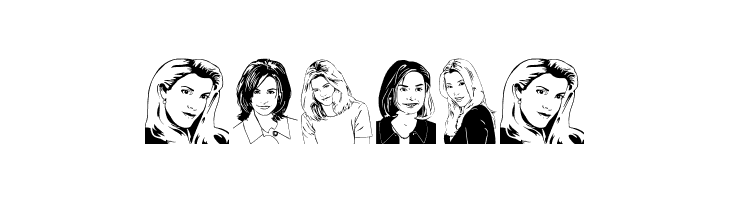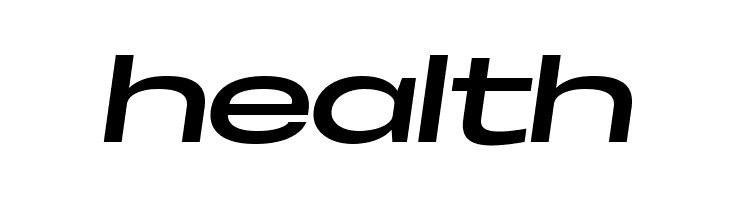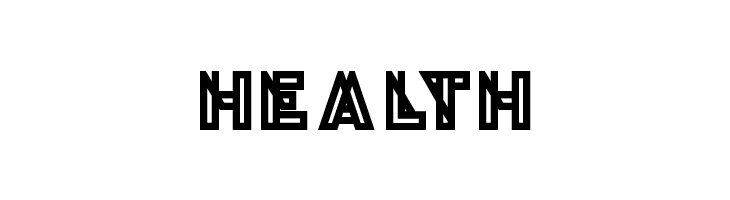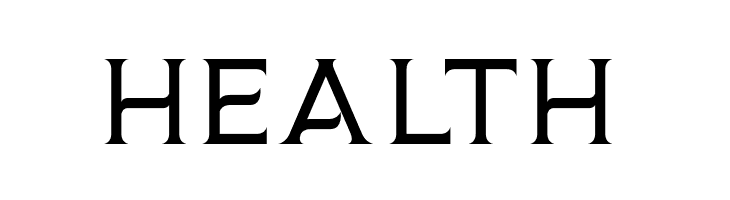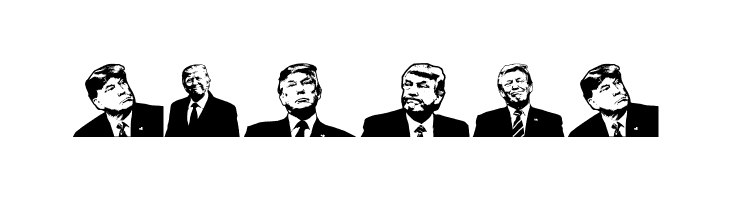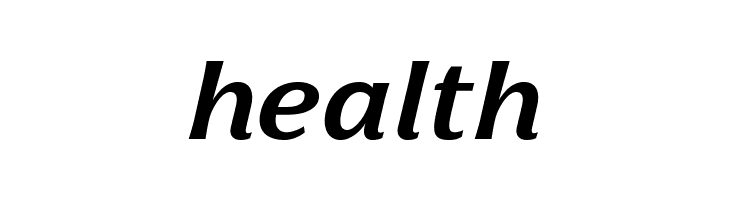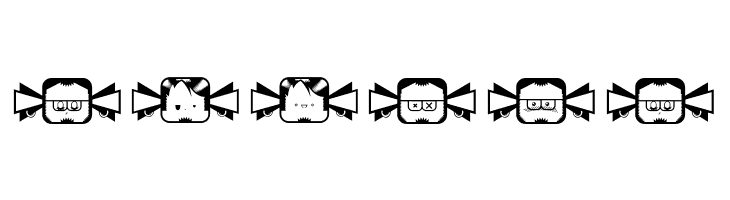
( Michael Gaines )
Illustrative font with each glyph as a woman's portrait.
( Måns Grebäck - www.mansgreback.com )
A bold, condensed typeface perfect for impactful headlines.
( Måns Grebäck - www.mansgreback.com )
A bold, extra-expanded italic font with a modern and dynamic style.
( Peter Olexa - www.dealjumbo.com )
A bold, shadowed font with a modern, decorative style, perfect for impactful headlines.
( Sharkshock - Dennis Ludlow - www.sharkshock.net )
A bold, gothic-inspired font with sharp serifs and a modern twist.
( Vladimir Nikolic - www.coroflot.com/vladimirnikolic )
A bold, decorative font with a dotted pattern, ideal for theatrical and eye-catching designs.
( Vladimir Nikolic - www.coroflot.com/vladimirnikolic )
A decorative font using illustrated caricatures as glyphs.
( Zetafonts - www.zetafonts.com )
A bold and italicized font with an elegant and sophisticated style.
( Zetafonts - www.zetafonts.com )
A bold, italicized typeface with thick strokes and a dynamic slant.
( coletivo NEGOBOM - Felipe Caroé - www.coletivonegobom.com )
A decorative design featuring candy shapes with faces.